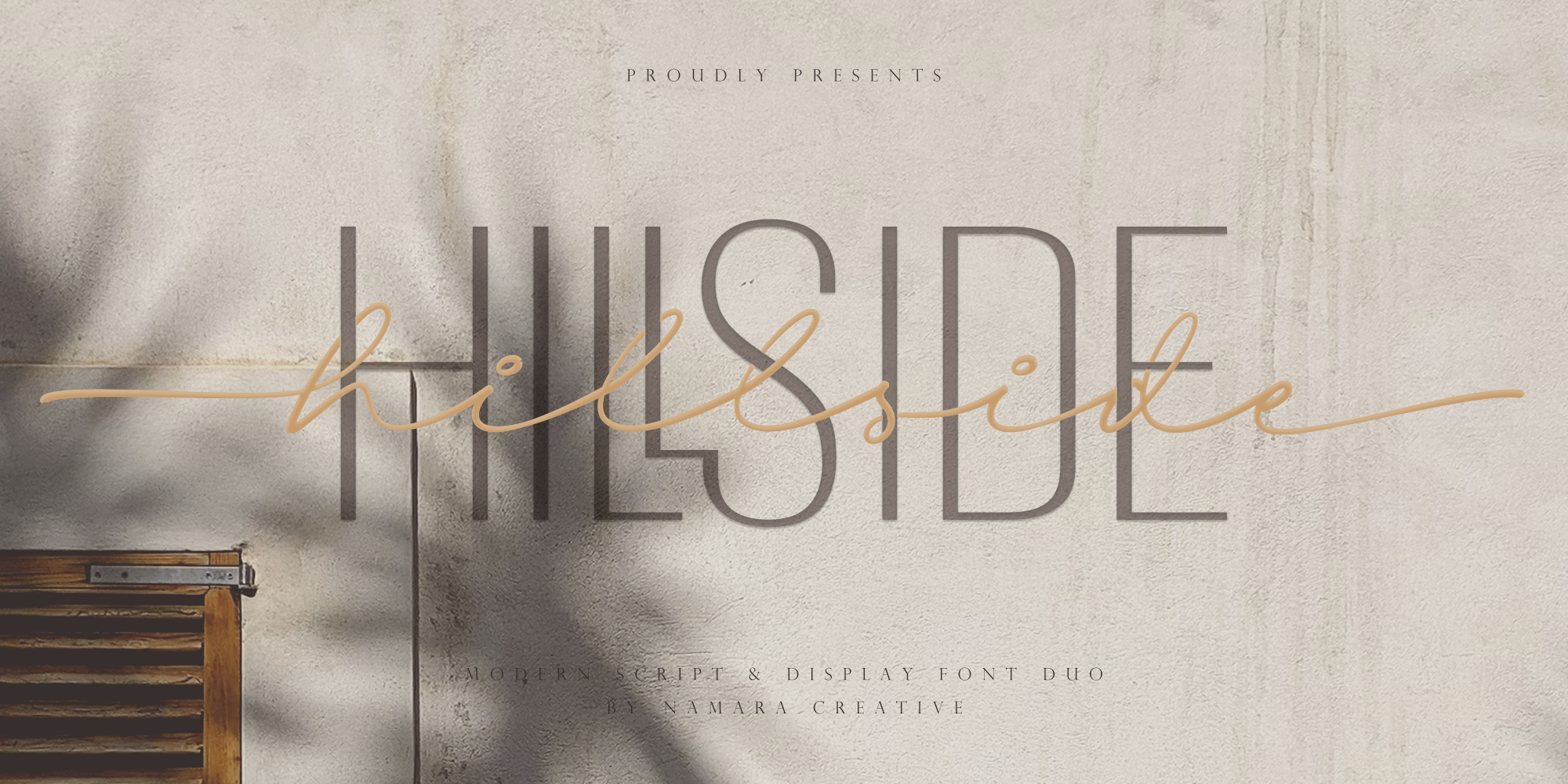
Hillside Font is a charming and distinctive typeface that evokes the rustic beauty of nature, the warmth of handcrafted art, and the peaceful serenity of the countryside. This unique font is perfectly suited for projects that aim for an organic, artisanal, or subtly whimsical aesthetic. Imagine Hillside Font gracing the labels of homemade goods, adding a cozy touch to cafe menus, or enhancing the visual appeal of local craft fairs and farmers' markets. It's also ideal for crafting unique invitations for outdoor events, designing enchanting book covers for children's stories or nature guides, or lending an authentic, earthy feel to blogs about gardening, travel, and homesteading. Its often gentle irregularities and flowing forms make it superb for designs seeking warmth, authenticity, and a connection to simpler times.
What makes Hillside Font so exciting is its ability to capture a sense of human artistry and the subtle imperfections found in nature. It possesses an inherent character that feels inviting and genuine, as if each letter has been carefully drawn by hand, bringing a sense of charm and bespoke artistry to your text. This font isn't just about conveying words; it's about conveying a feeling—a gentle breeze, a sun-drenched meadow, or the comfort of home. Its organic curves and unique details create a rich visual experience that instantly adds depth and personality to your design, making it truly captivating for projects that value authenticity and warmth.
Hillside Font typically focuses on its distinctive display qualities, often available in a standard regular weight, possibly with a few stylistic alternatives that enhance its natural, flowing feel. While it may not feature an extensive range of weights like a traditional text font, its strength lies in the singular charm and consistent design of its primary form. Its nuanced strokes and flowing shapes ensure that its unique appearance is maintained across various applications, making it highly effective for impactful headings, artistic accents, and designs where a rustic yet refined visual impact is desired.